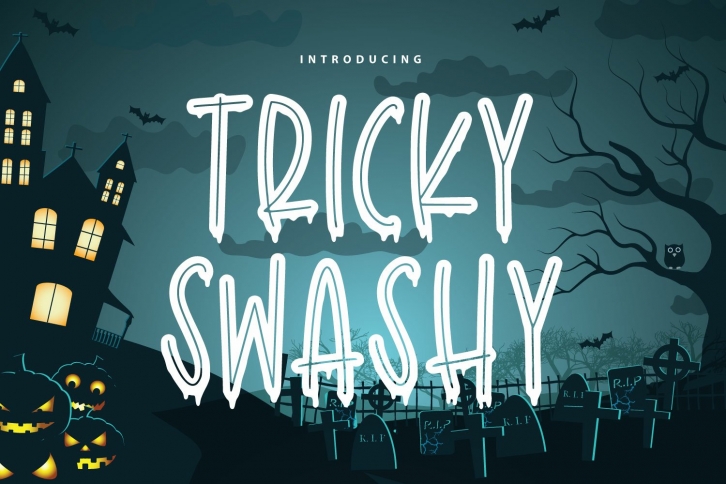
Tricky Swash is a gorgeous font that was realeased on September 17, 2021. The font can be used in many style contexts and design environments. Perfect for invitations, magazines, websites, logos, and more! It was designed by Typefar and the file size is 11.95 MB. Thanks for checking out this font!